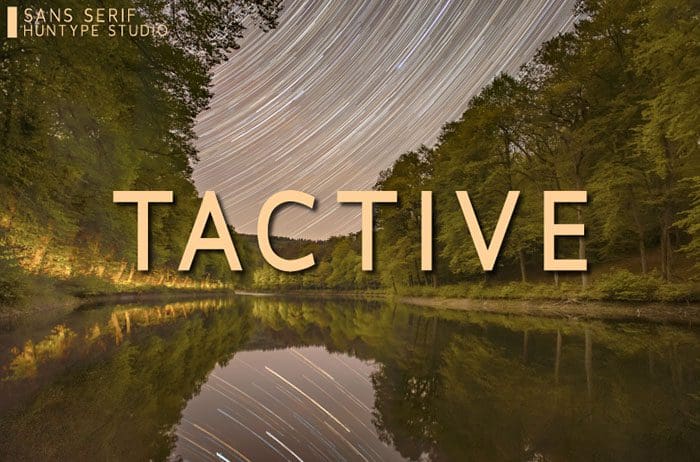
Tactive Sans Serif Font
Tactive is a distinct and elegant sans serif font that blends traditional influences into a contemporary aesthetic. Its well balanced Latin details contain distinctive contrasts. Use Tactive to achieve an exquisite, yet subtle look and maximum versatility. Thanks to Mas Anis for sharing this font! Take a look at this portfolio for more of his stunning fonts.